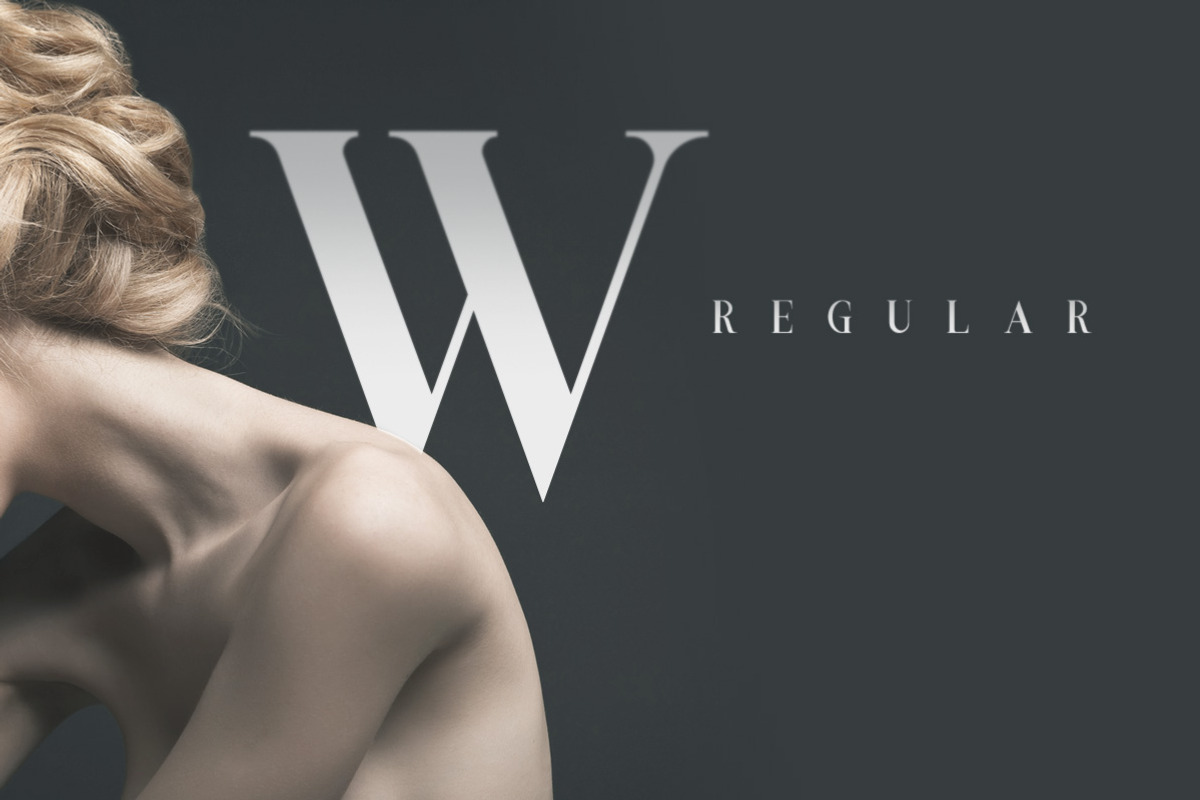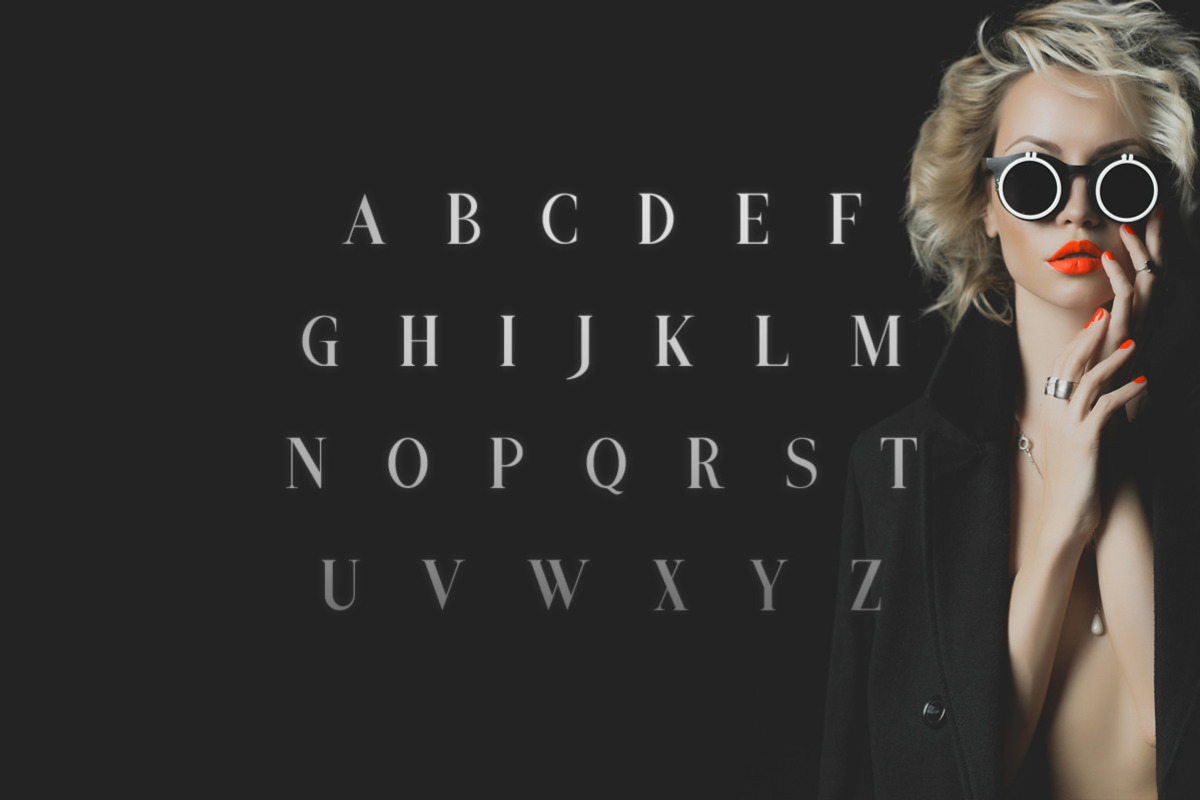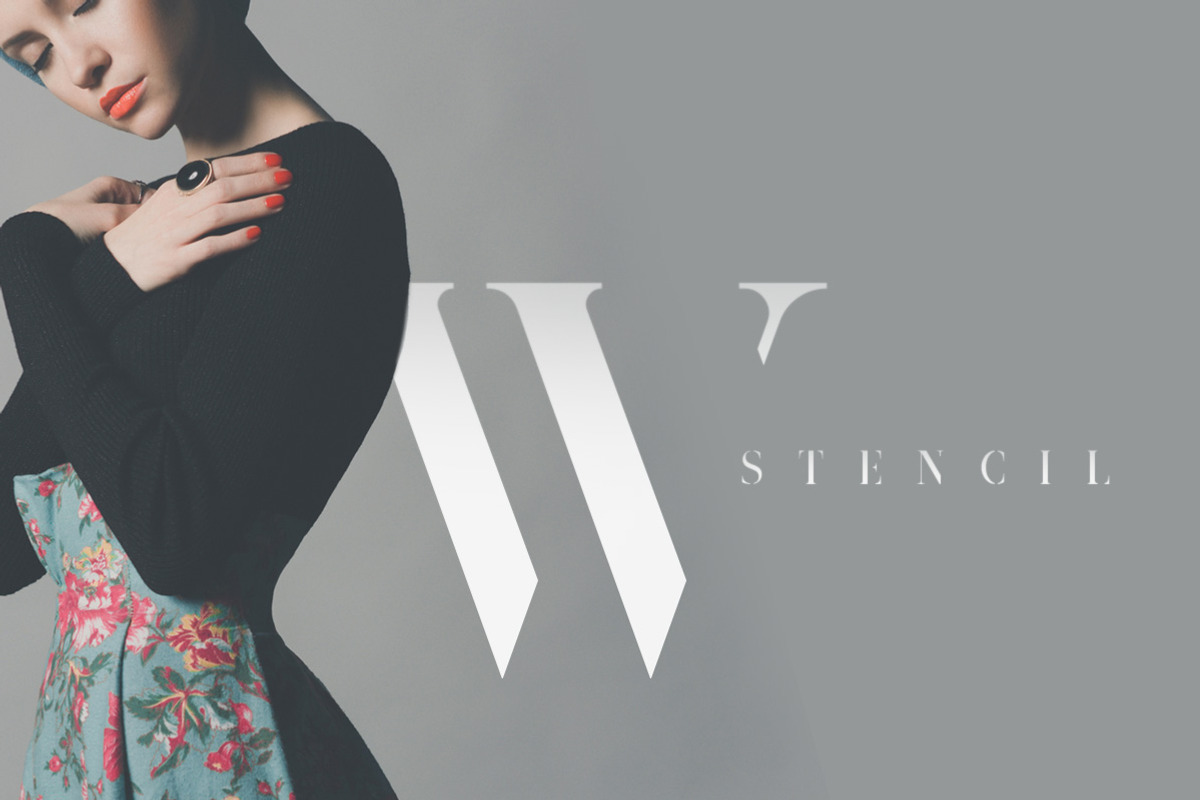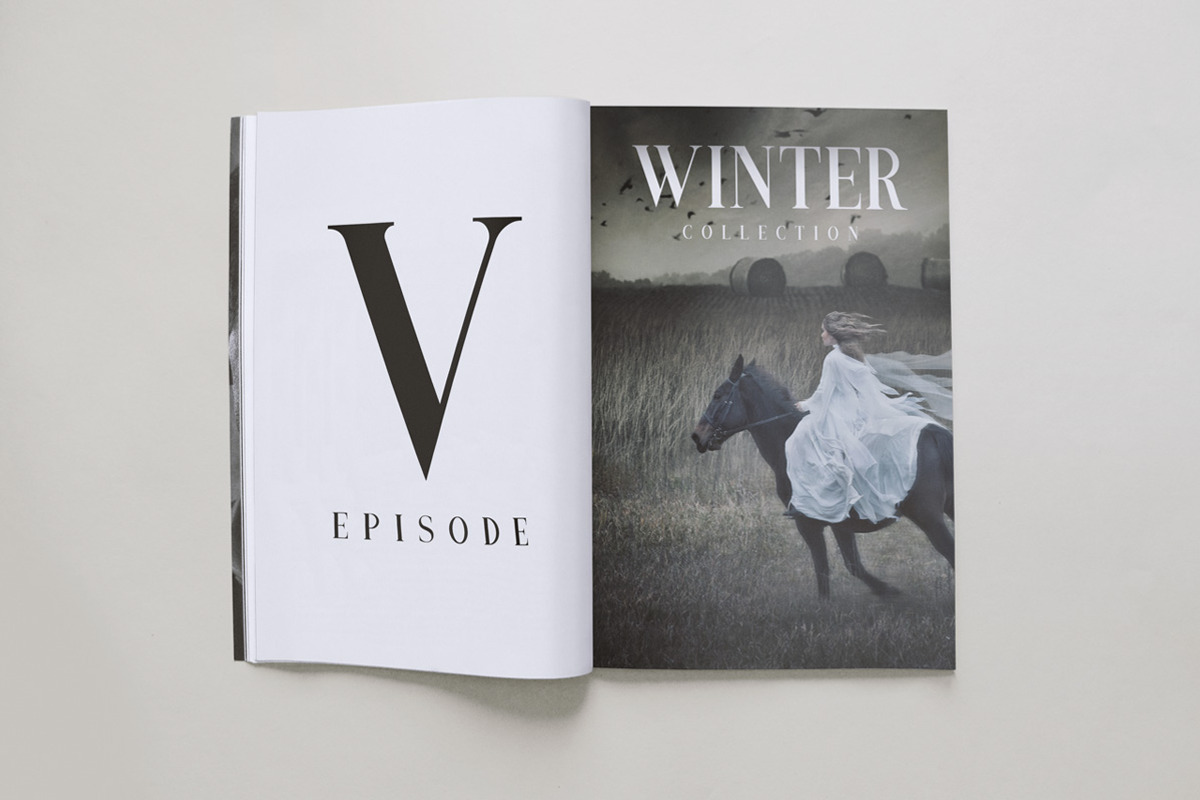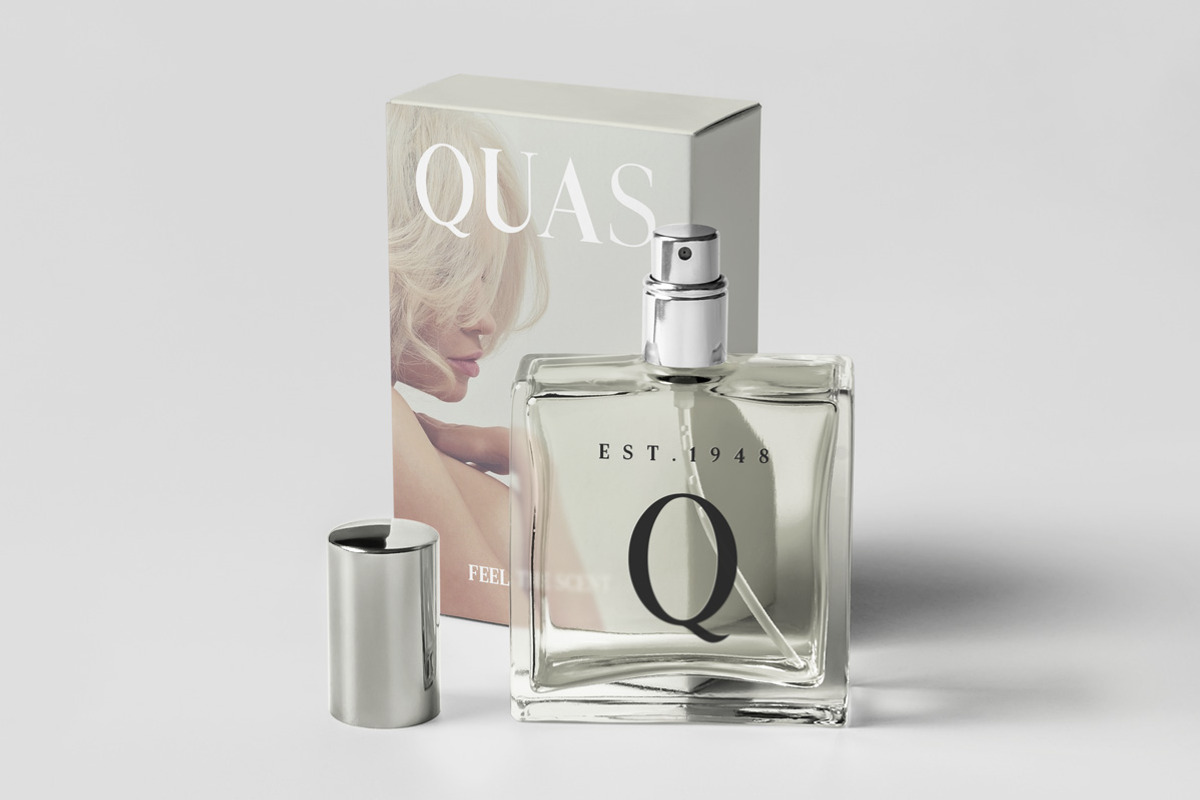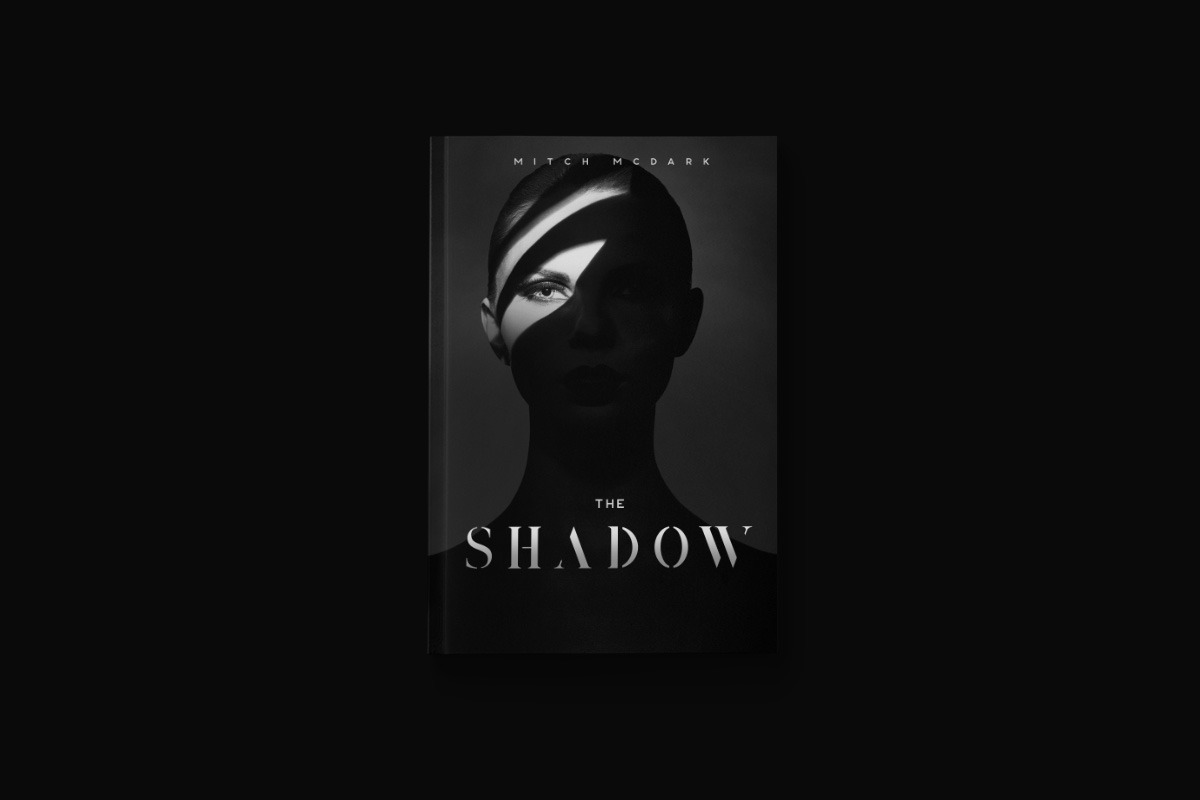
Quas Typeface
Quas Typeface by Tugcu Design Co. is a font selected for branding, posters, packaging, typography.
- Features Uppercase Multilingual Letters Numbers & Punctuation Bold and Regular Weights Minimal Stencil Style Distressed Corroded Style Looki
- Quas Regular
- Quas Bold
- Quas Corroded
- Quas Stencil
Quas Typeface by Tugcu Design Co. fits naturally into Branding, posters, packaging, typography.